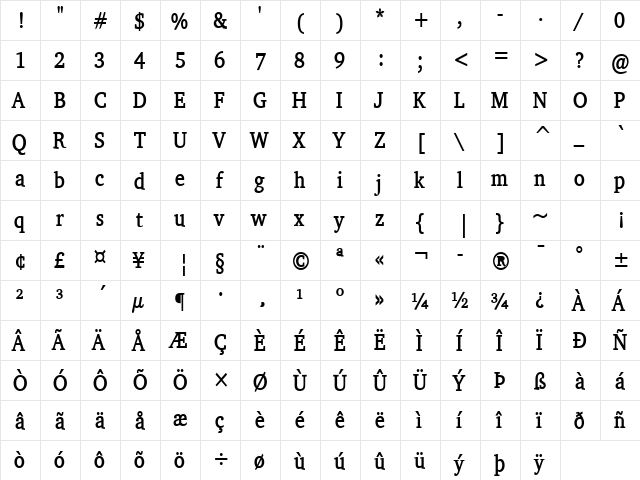
Challenge-Condensed Bold Font Preview
Design Context for Challenge-Condensed Typeface
Challenge-Condensed takes a measured approach to typography — its balanced proportions and neutral character make it a reliable workhorse for both digital and print work. Its bold stroke weight gives it real presence on the page. The condensed width makes it efficient for tight spaces without sacrificing legibility.